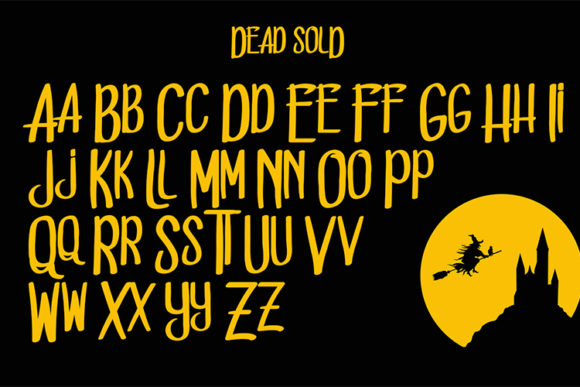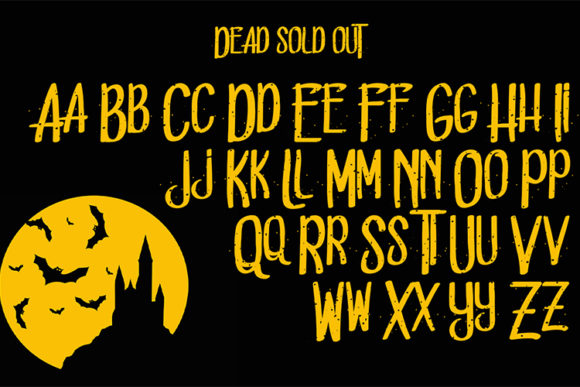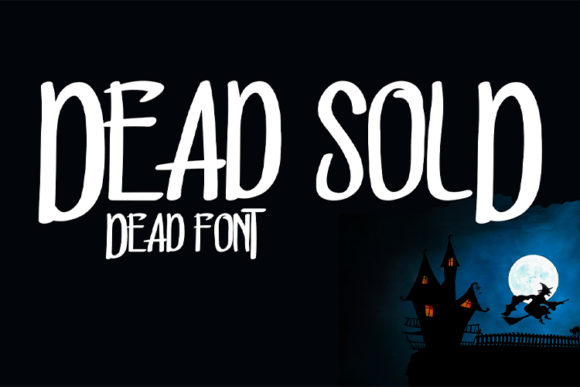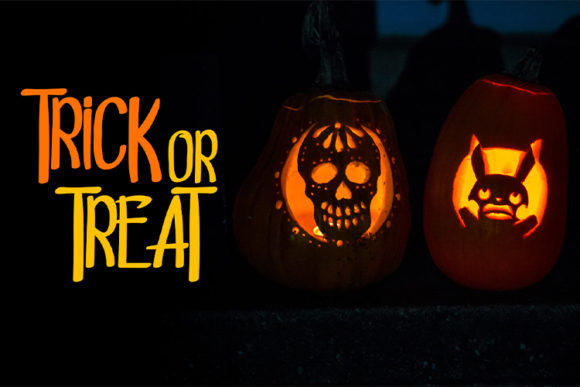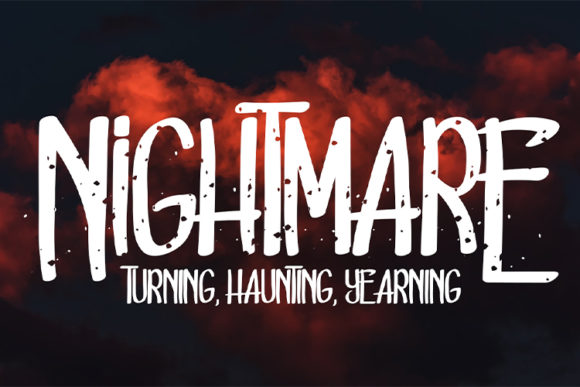
Unleash the Spooky Spirit with Dead Sold Font: A Perfect Addition to Your Halloween Designs
As the spookiest time of the year approaches, designers and crafters are on the lookout for the perfect font to add a touch of eeriness to their Halloween-themed projects. Look no further than Dead Sold Font, a unique and captivating typeface that’s equal parts fun and spooky. In this article, we’ll dive into the world of Dead Sold Font, exploring its features, uses, and benefits, and why it’s the perfect addition to your Halloween designs.
What is Dead Sold Font?
Dead Sold Font is a distinctive and eye-catching typeface that’s specifically designed to evoke the spirit of Halloween. With its rough, distressed texture and playful, yet eerie feel, this font is sure to make your designs stand out from the crowd. Whether you’re creating invitations, decorations, or other Halloween-themed materials, Dead Sold Font is the perfect choice.
Key Features of Dead Sold Font
- Unique and Spooky Design: Dead Sold Font boasts a one-of-a-kind design that’s both fun and spooky, making it perfect for Halloween-themed projects.
- Rough and Distressed Texture: The font’s rough, distressed texture adds a tactile feel to your designs, giving them a more organic and handmade look.
- Playful yet Eerie Feel: Dead Sold Font strikes the perfect balance between playfulness and eeriness, making it suitable for a wide range of Halloween designs.
- Easy to Read: Despite its distressed texture, Dead Sold Font remains easy to read, ensuring that your message gets across clearly.
Uses of Dead Sold Font
Dead Sold Font is incredibly versatile and can be used in a variety of Halloween-themed projects, including:
- Halloween Invitations: Create spooky and eye-catching invitations that set the tone for a howling good time.
- Decorations and Signage: Use Dead Sold Font to create decorations, signs, and banners that add a touch of eeriness to your Halloween setup.
- T-Shirts and Merchandise: Design unique and spooky t-shirts, hoodies, and other merchandise that will make your customers scream with delight.
- Social Media Graphics: Create engaging and spooky social media graphics that will grab the attention of your followers.
Benefits of Using Dead Sold Font
So, why choose Dead Sold Font for your Halloween designs? Here are just a few benefits:
- Instant Recognition: Dead Sold Font’s unique design ensures instant recognition and sets your designs apart from the crowd.
Tips for Using Dead Sold Font
To get the most out of Dead Sold Font, here are a few tips:
- Pair with Other Fonts: Experiment with pairing Dead Sold Font with other fonts to create a unique and visually appealing design.
- Use in Combination with Images: Combine Dead Sold Font with spooky images or graphics to create a design that’s both eye-catching and eerie.